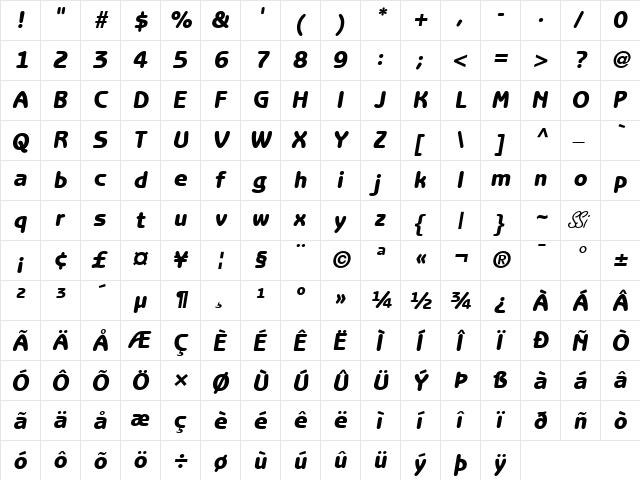
Express Deco GothicBlack SSi Black Italic Font Preview
Design Context for Express Deco GothicBlack SSi Typeface
Express Deco GothicBlack SSi has the quiet confidence of well-executed sans-serif typography: versatile, unobtrusive, and dependable at any size. The dynamic lean of this cut emphasises speed and emphasis in any layout.
Font Pairing: Works well alongside a characterful serif or display font that can carry the expressive load while Express Deco GothicBlack SSi handles the functional copy.
Pro Tip: Pair Express Deco GothicBlack SSi with a display or serif font for headlines — its neutral character makes it an excellent supporting player in complex typographic systems.